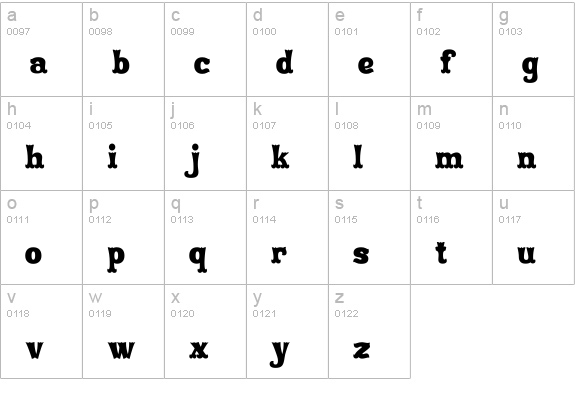
Rodeo Clown Fill Font Details
Rodeo Clown Fill font is a whimsical and playful typeface that brings a fun and energetic vibe to any design project. With its bold and quirky letterforms, this font is perfect for adding a touch of personality to posters, invitations, and more. The unique fill design adds depth and dimension to each character, making them stand out on the page. Best of all, Rodeo Clown Fill font is completely free to download at FontsMarket.com. Whether you're a designer looking to add a touch of whimsy to your work or just someone who appreciates a fun and creative font, Rodeo Clown Fill is sure to delight. Download it today and let your imagination run wild with this charming and eye-catching typeface.